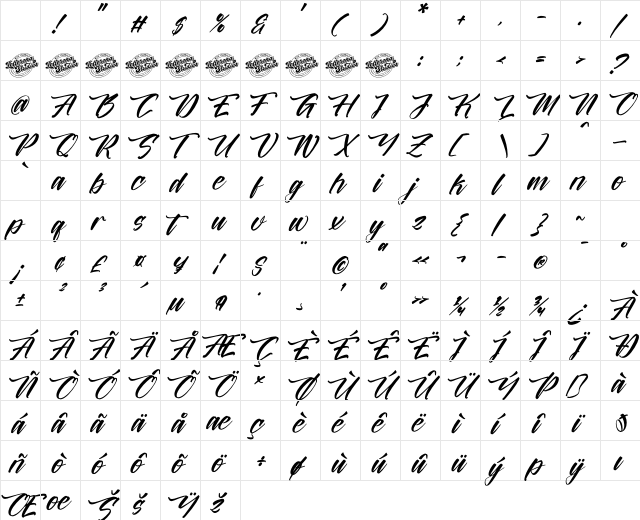
Complete Battrich Delighta DEMO VERSION Italic glyph index. Displaying only characters natively supported by Battrich Delighta DEMO VERSION Italic font.
Battrich Delighta DEMO VERSION is a composed and adaptable typeface that performs quietly and consistently across a wide range of design contexts. The slanted form adds forward momentum and visual energy. Its slender proportions lend an understated elegance to any composition.
Pro Tip: Use Battrich Delighta DEMO VERSION for emphasis, pull quotes, and subheadings where its slanted energy can add rhythm to the layout.